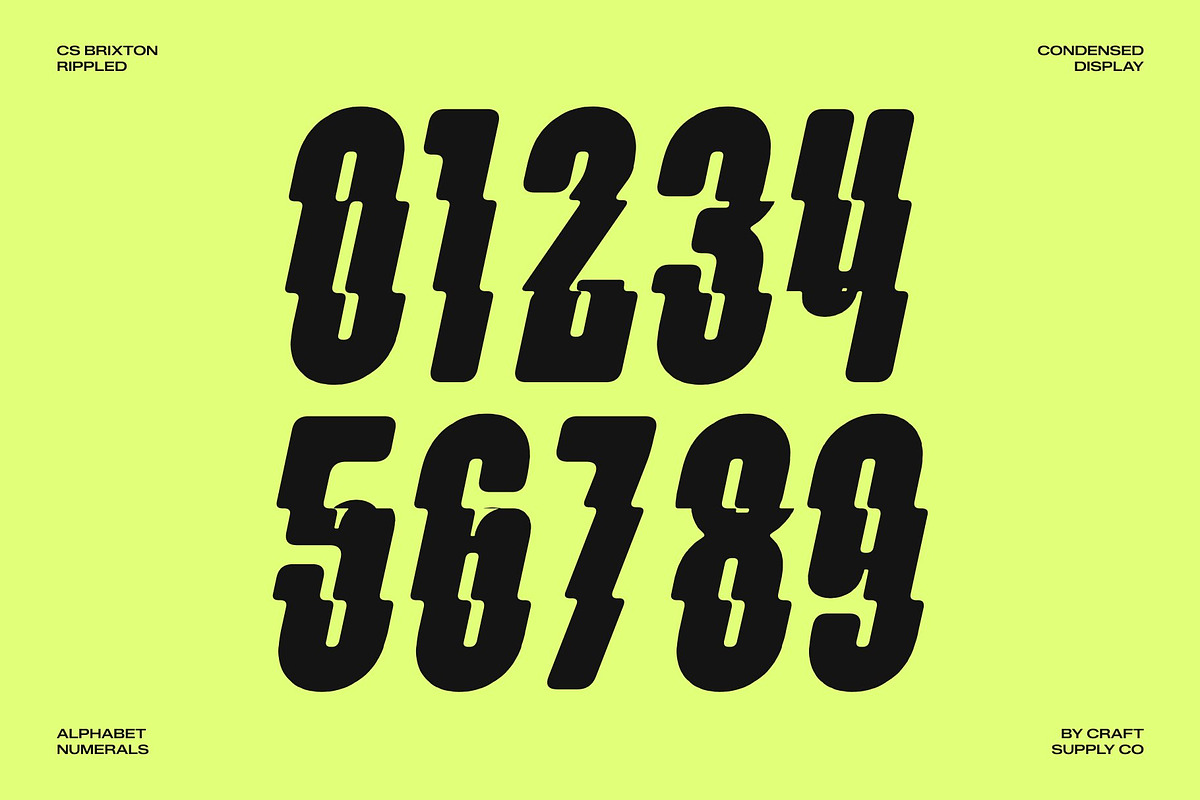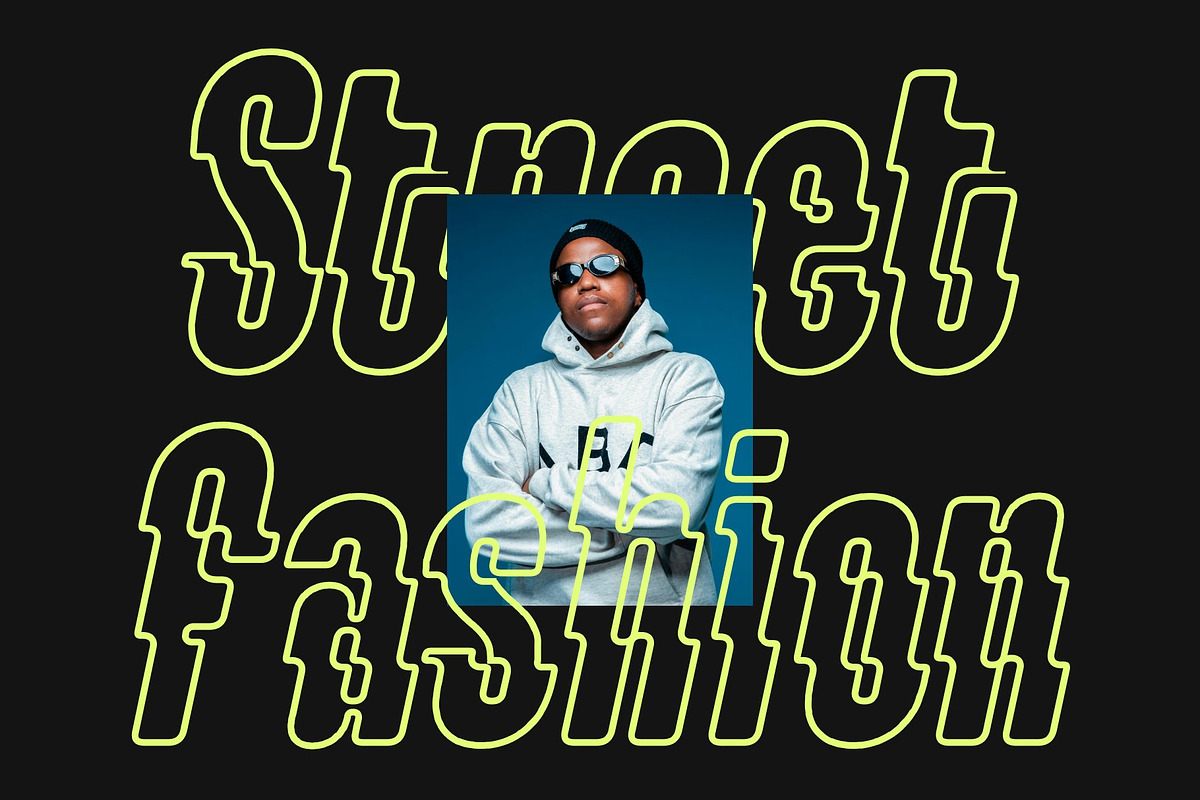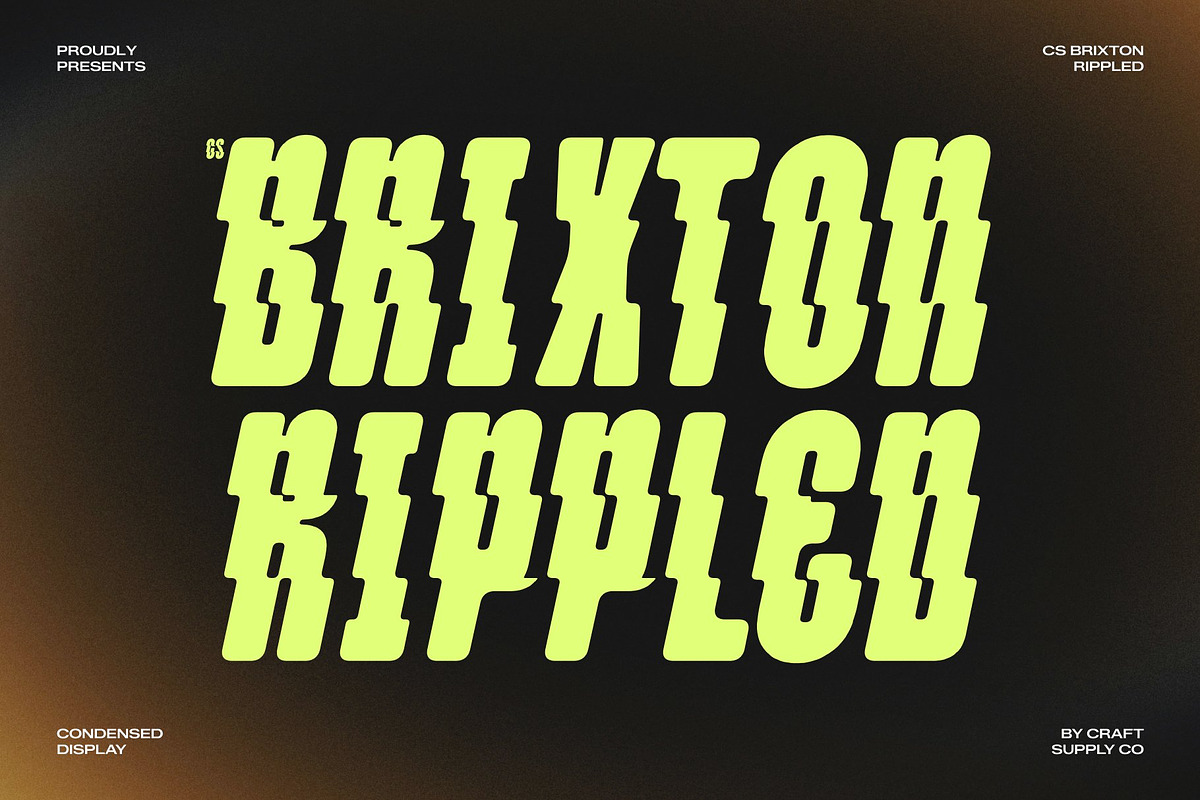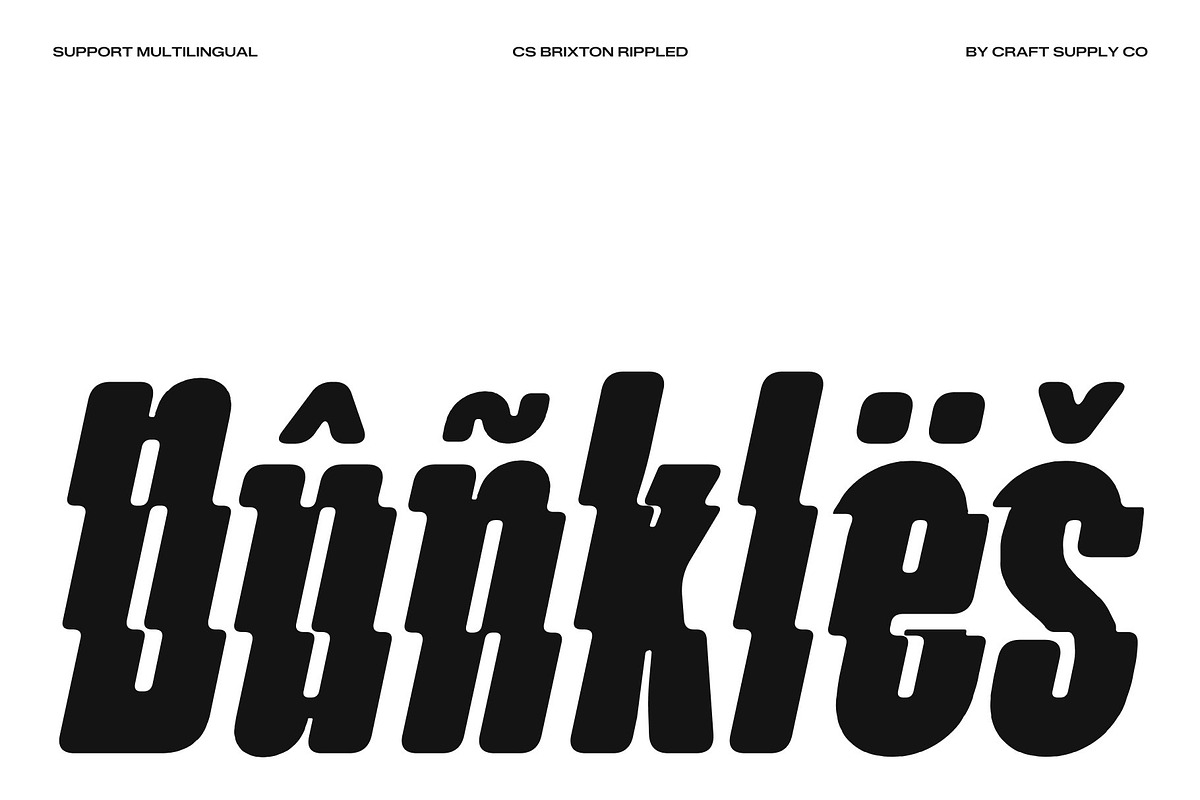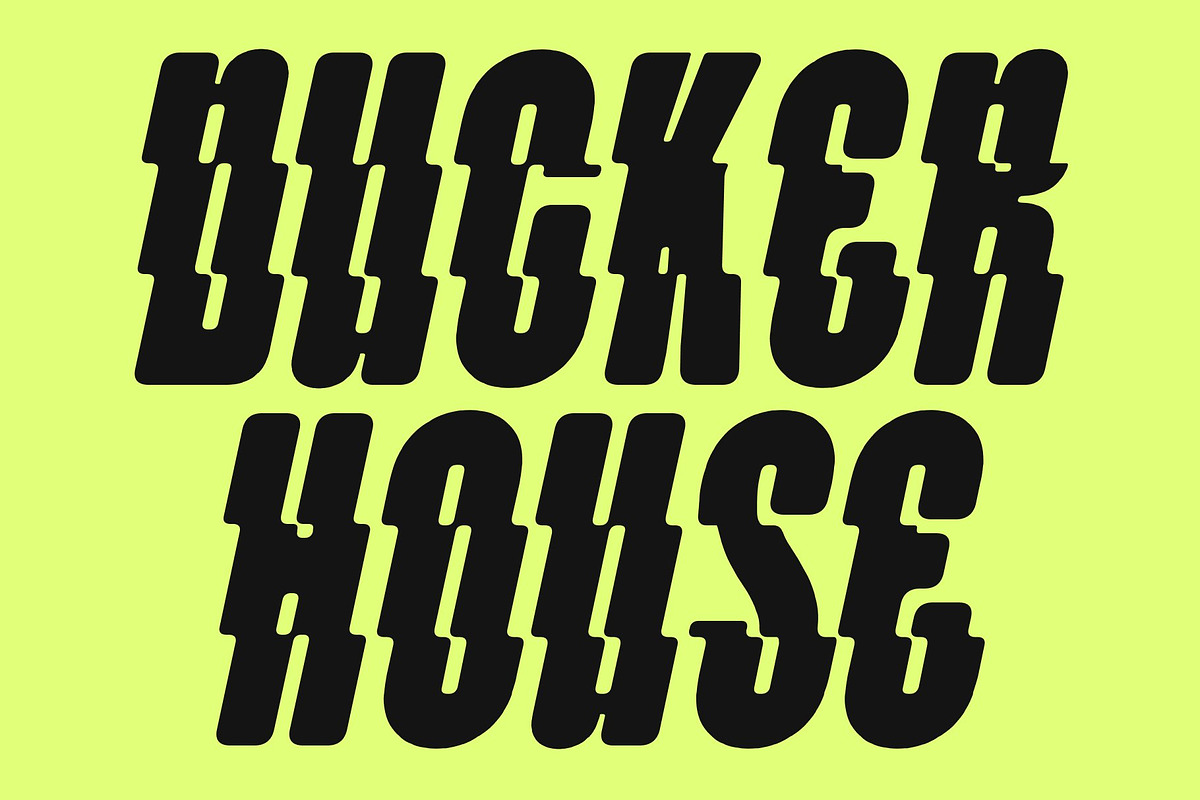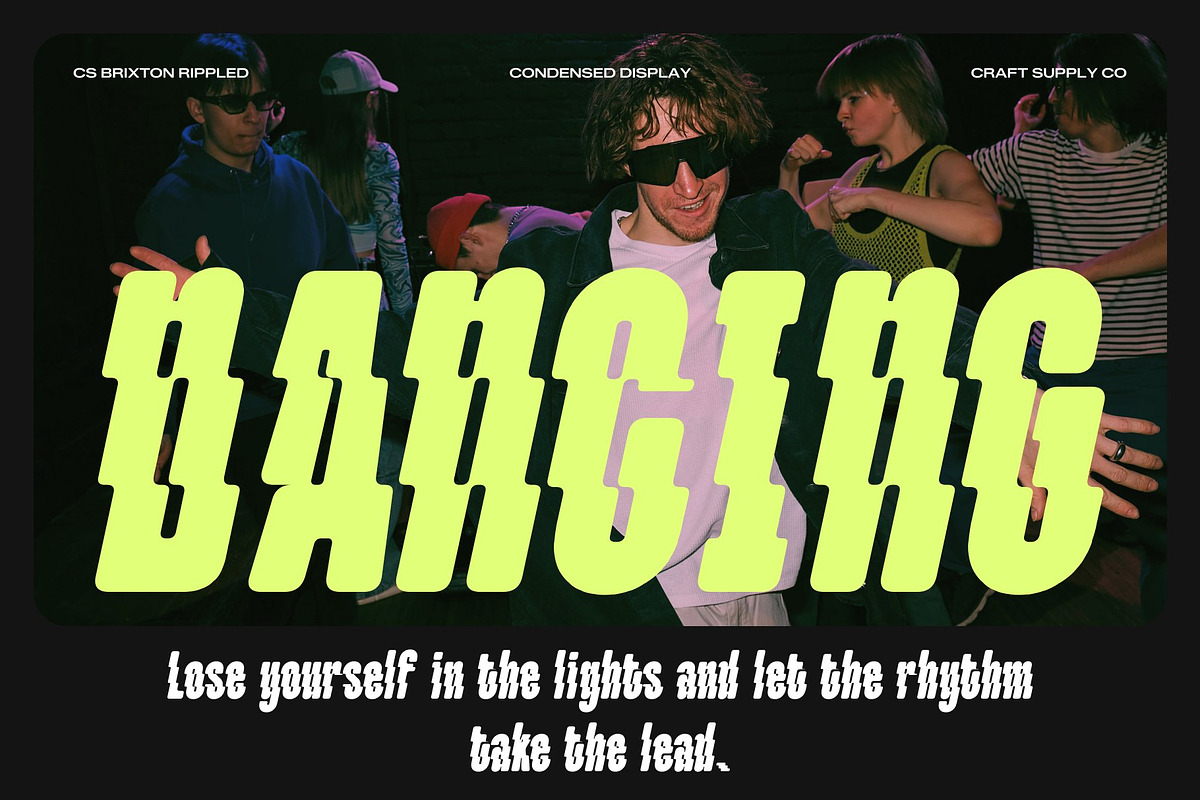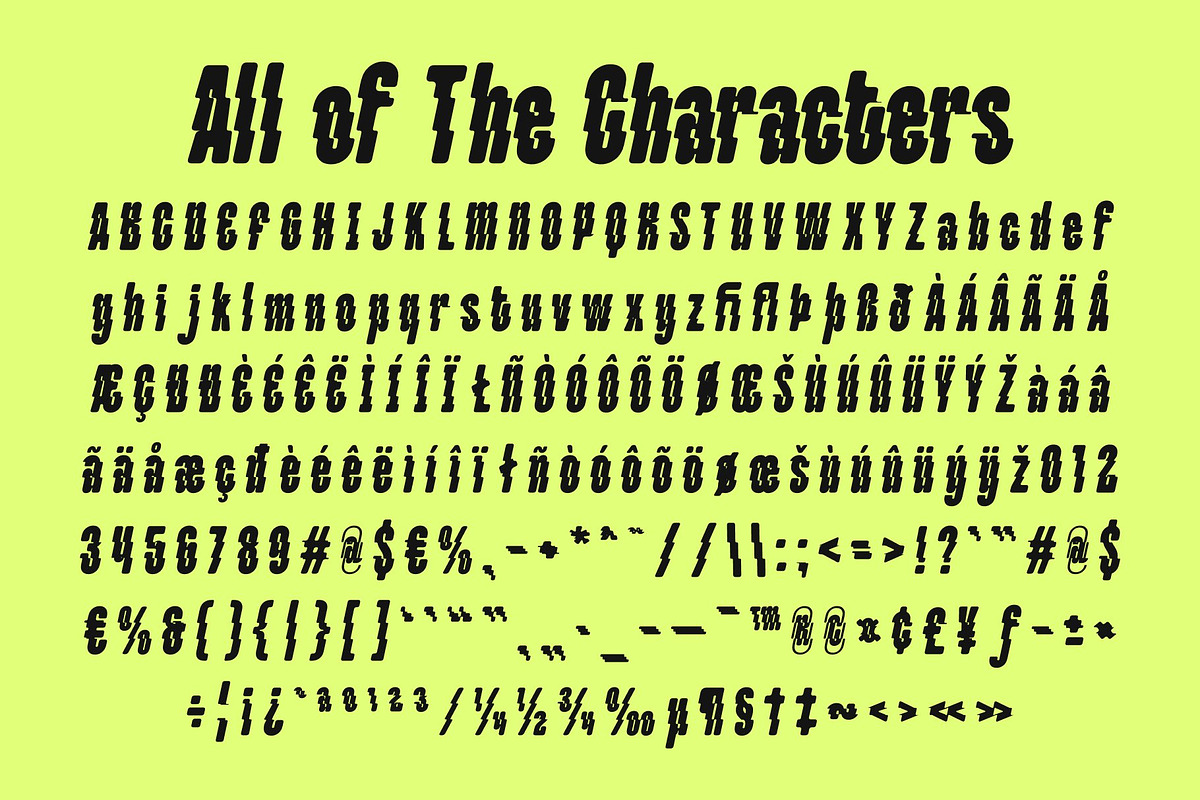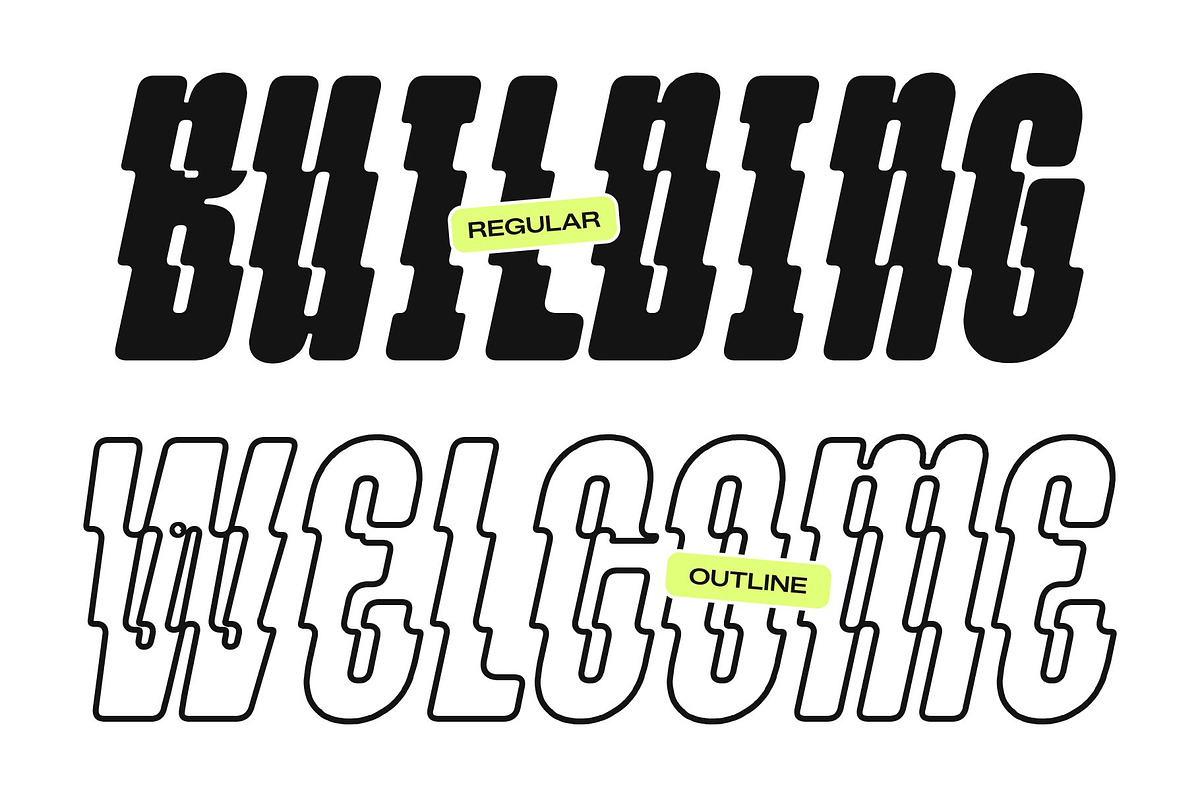
CS Brixton Rippled
CS Brixton Rippled – Bold Modern Sans Serif Font: Where Strong Impact Meets Liquid Wave Energy
Powerful Contemporary Forms with Dynamic Presence This is a bold modern sans serif display font designed to create a strong and commanding visual statement. Its solid geometric structure and confident proportions generate an energetic modern appearance filled with impact, movement, and expressive personality. Every letter feels bold and immersive, making the font perfect for attention-grabbing headlines and vibrant creative compositions.
Rippled Effect with Fluid Wave Distortion This font creates the illusion of typography reflected on water or distorted by flowing waves. The liquid-inspired detailing introduces rhythmic motion, surreal visual energy, and organic fluidity, giving the font a distinctive and highly engaging appearance. This wave-like distortion adds depth and playfulness while maintaining bold readability.
Urban Energy with Tropical Psychedelic Style This font delivers a typographic identity that feels contemporary, vibrant, and visually immersive. Its bold structure combined with liquid motion styling evokes music culture, tropical aesthetics, psychedelic visuals, and modern street fashion energy.
Perfect for Posters, Fashion, and Festival Branding This font perfect for music and festival posters, beverage branding, beach and surf brands, psychedelic album covers, summer campaigns, street fashion graphics, pool party events, and promotional materials. Its rippled forms make it ideal for logos, merchandise, signage, apparel, and visual identities that seek a bold and energetic appearance.
CS Brixton Rippled Regular
CS Brixton Rippled Outline